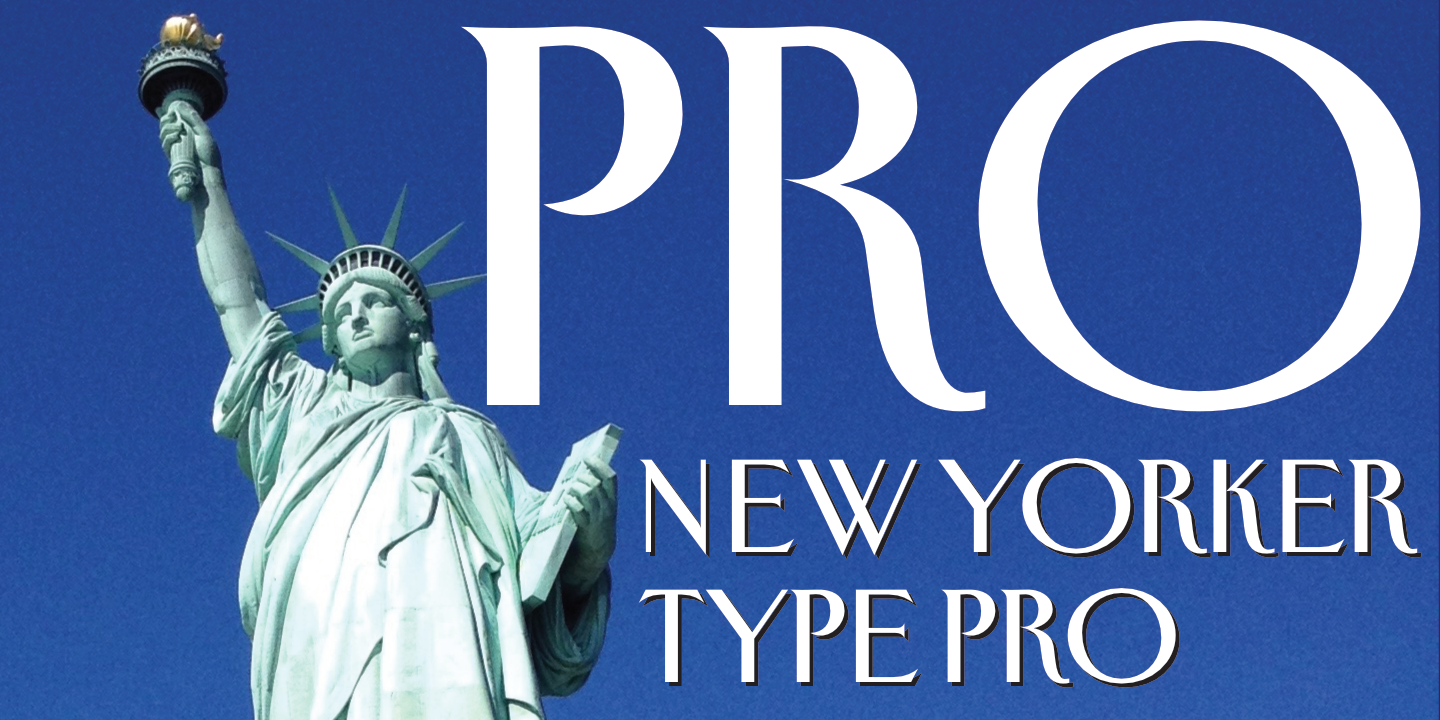
New Yorker Type Pro Font is ideal for magazine layouts, newspaper headlines, editorial design, book publishing, corporate branding, advertising campaigns, website headers, business presentations, professional reports, and sophisticated marketing materials.
What makes New Yorker Type Pro Font exciting is its perfect balance of journalistic tradition and modern readability. This exceptional typeface embodies the sophisticated editorial style of premium publications while offering enhanced legibility across all media platforms. The font's professional character and refined letterforms instantly establish credibility and intellectual authority, making it the preferred choice for serious publications and respected brands.
New Yorker Type Pro Font family includes comprehensive variations such as Regular, Bold, Light, Medium, Italic, Condensed, Extended, and Display styles, providing complete typographic flexibility for complex editorial layouts and diverse design requirements.
The New Yorker Type Pro Font Free Download represents a pinnacle achievement in editorial typography, combining timeless elegance with contemporary functionality. This remarkable typeface draws from decades of publishing excellence, featuring carefully balanced proportions and optimized spacing that ensures exceptional readability in both digital and print applications. Professional designers and publishers consistently select this font for projects demanding intellectual sophistication and editorial credibility.
Whether you're designing literary magazines, creating corporate annual reports, developing news websites, or crafting professional documentation, New Yorker Type Pro Font delivers unparalleled typographic excellence. The font's versatility excels in long-form reading applications while maintaining strong visual impact in headlines and display settings.
The sophisticated design characteristics of New Yorker Type Pro Font include precisely engineered x-heights, optimized character spacing, and refined stroke weights that reference classic editorial typography while incorporating modern digital optimization. These features make it perfect for academic publications, financial reports, legal documents, cultural magazines, literary journals, and premium content platforms.
Editorial professionals value how New Yorker Type Pro Font enhances reading comprehension while projecting authority and trustworthiness. Its classic proportions ensure comfortable extended reading, while its distinctive personality helps establish immediate recognition and brand consistency across various publishing platforms.
The font's exceptional performance across multiple languages and character sets makes it particularly valuable for international publications and global brands. From annual reports and white papers to digital magazines and educational materials, New Yorker Type Pro Font maintains its professional presence while ensuring optimal accessibility for diverse audiences.
For publishers and designers committed to creating authoritative content that commands respect and engagement, this font provides the perfect foundation for serious editorial design that resonates with educated, discerning readers seeking quality information and sophisticated presentation.